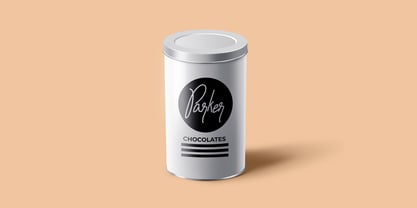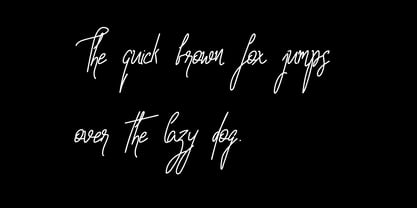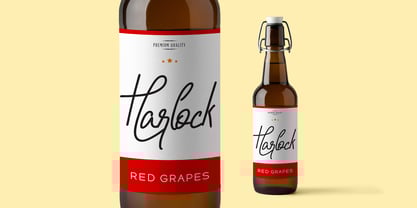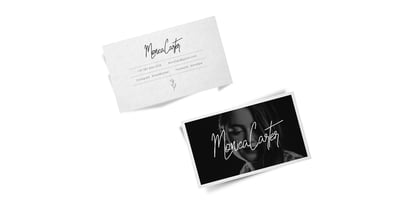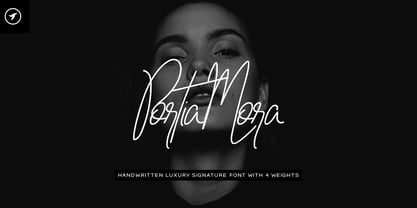
Portia Mora
by Designova
The Portia Mora Font Family was designed by Lisha Joseph and published by Designova. Portia Mora contains 4 styles and family package options.
Portia-Mora is an extremely unique and beautiful handwritten signature font for luxury, branding, logotype, wedding invites, greeting cards, and promotional graphics. It is handcrafted with unique custom brushes (including 4 weights), ensuring perfection and aesthetics at their best.
The typeface contains 4 weights (Thin, Light, Regular, and Bold) made with custom brushes having different properties for a distinguished look and feel.
Advanced Kerning & Essential Ligatures:
We have performed advanced, in-depth kerning to ensure the font looks amazing on all possible letter combinations.